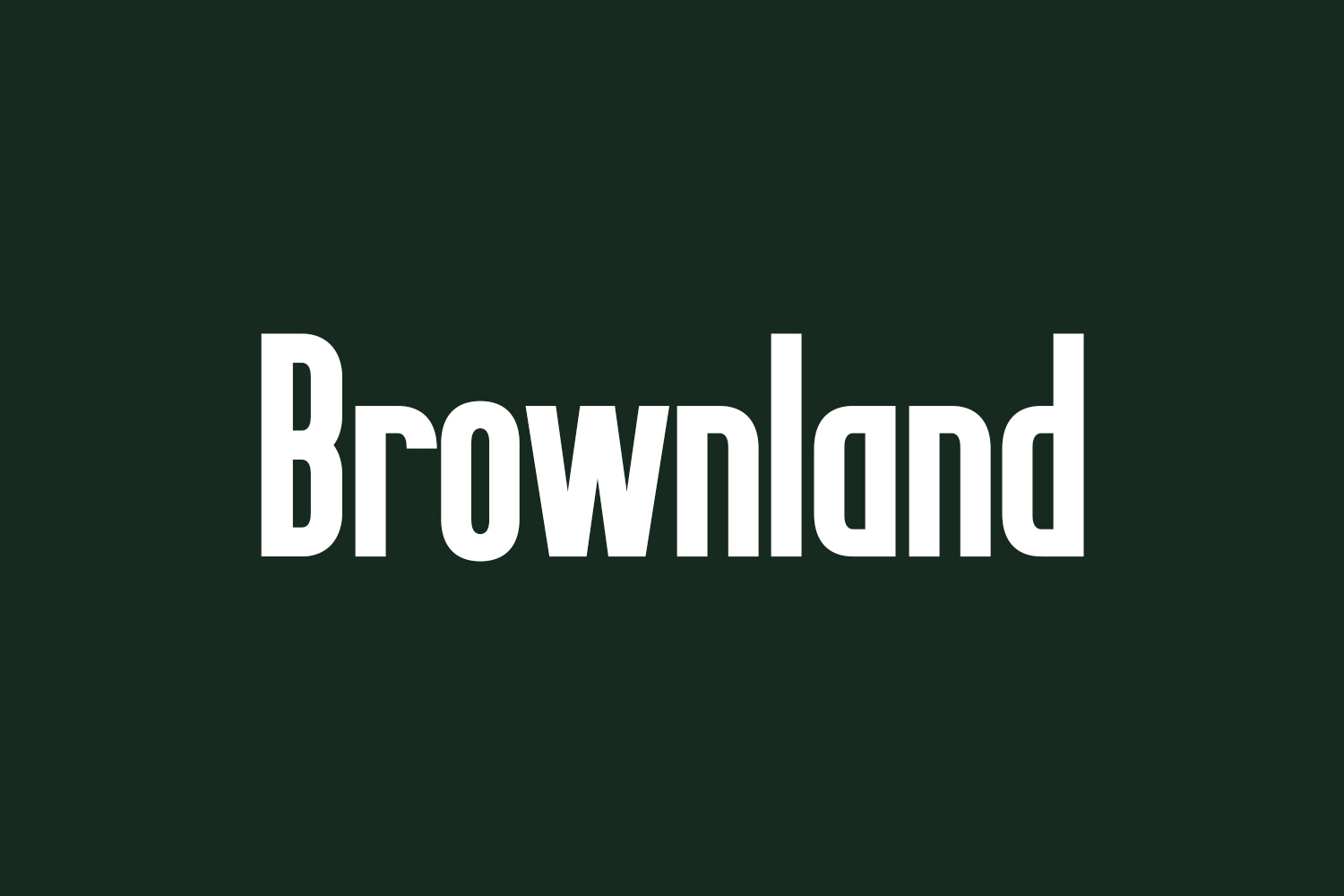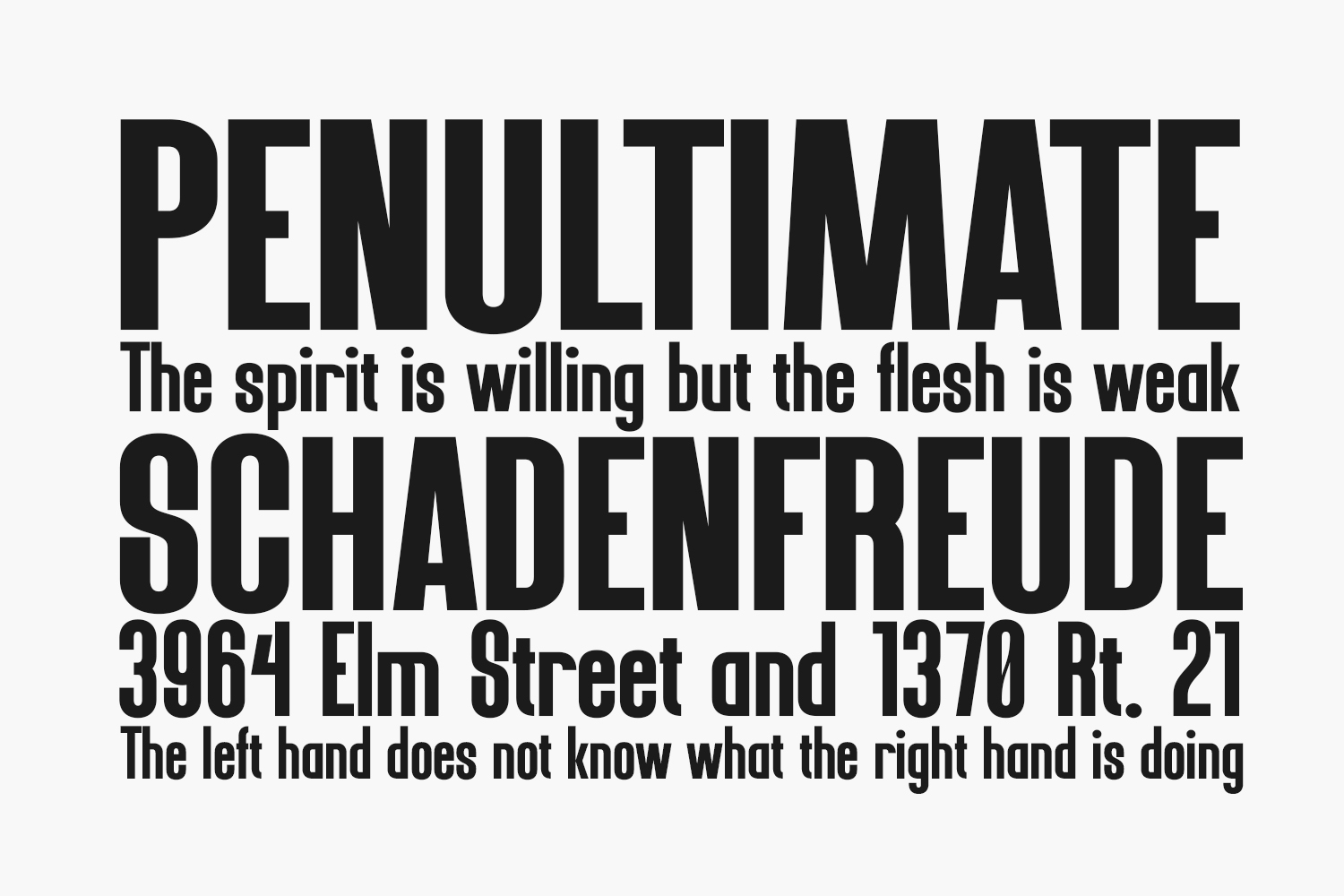
Brownland Free Font is a cool and modern sans serif font. Add it confidently to your designs and you will love the results. Download the font for free if you need it for personal use or purchase the full version for commercial use.